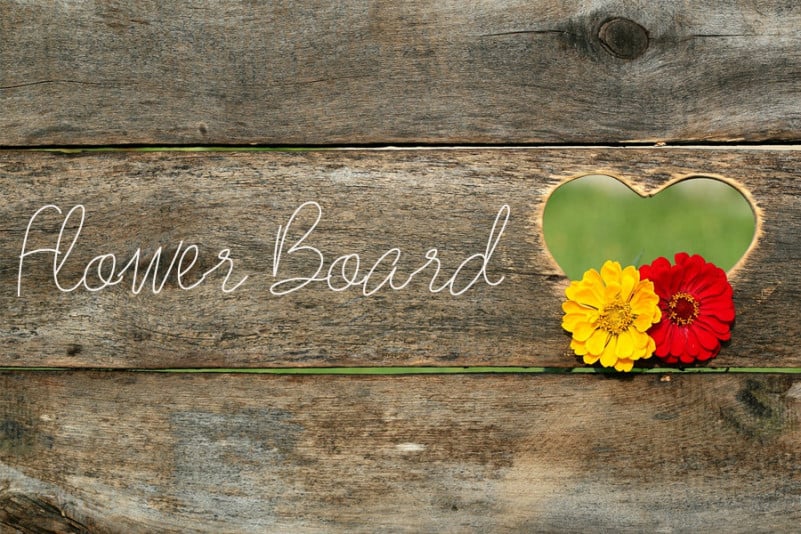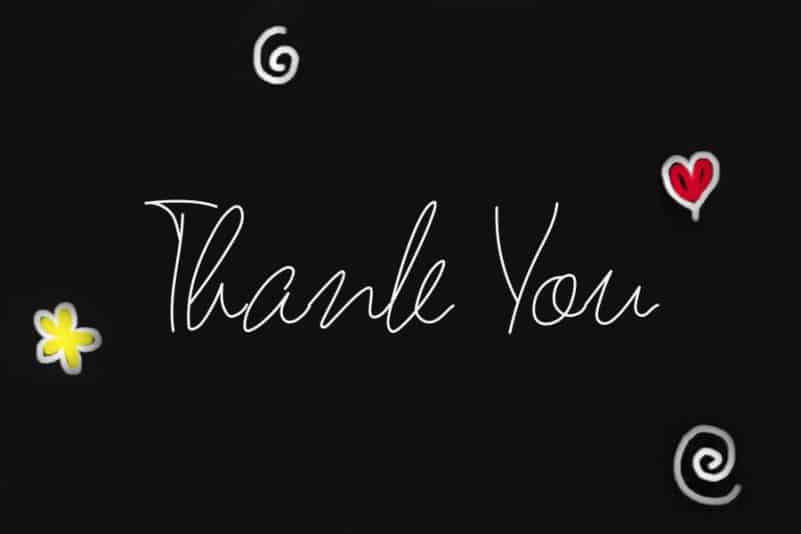
Ballio Handwritten Font
Ballio Handwritten Font is a simple and natural handwritten font. This original look will appeal to a wide range of crafty ideas, from letterheads and titles, to stationery.
Ballio Handwritten Font is a very talented product for you to use,
Latest letters that can be used for various products, invitations, wall hangings, weddings, and more.